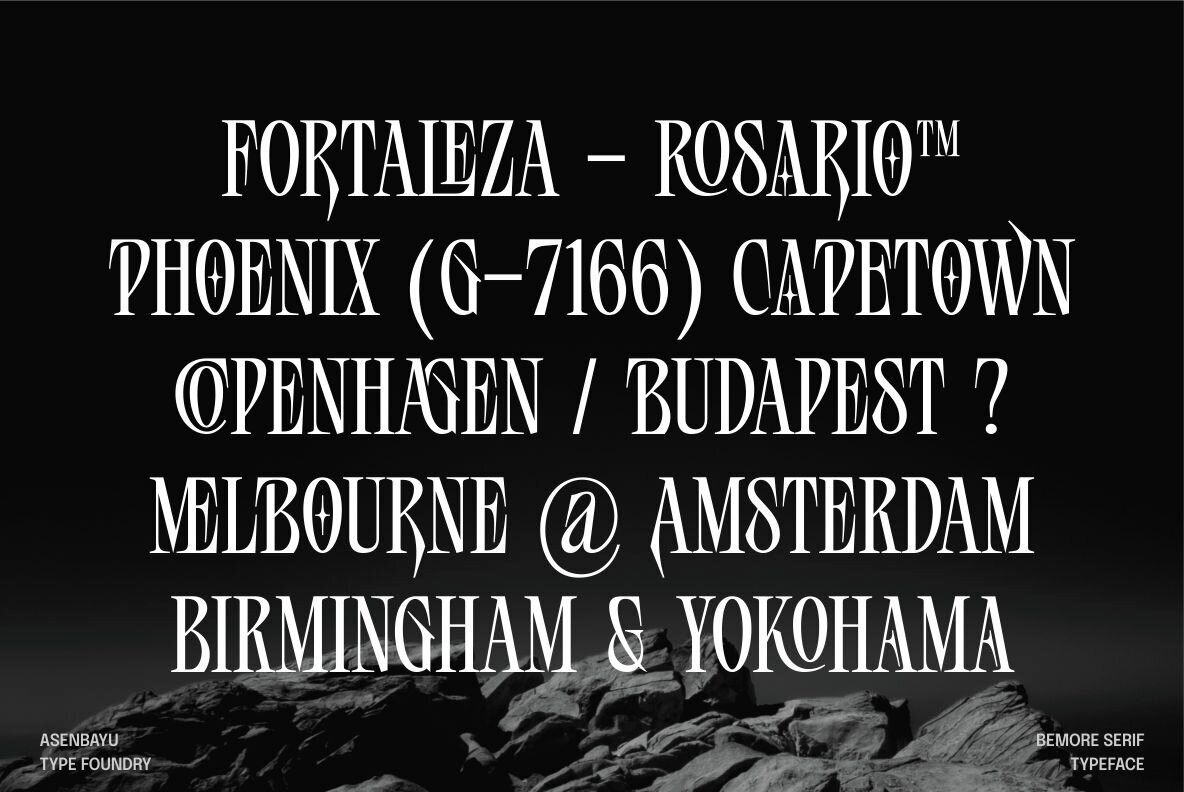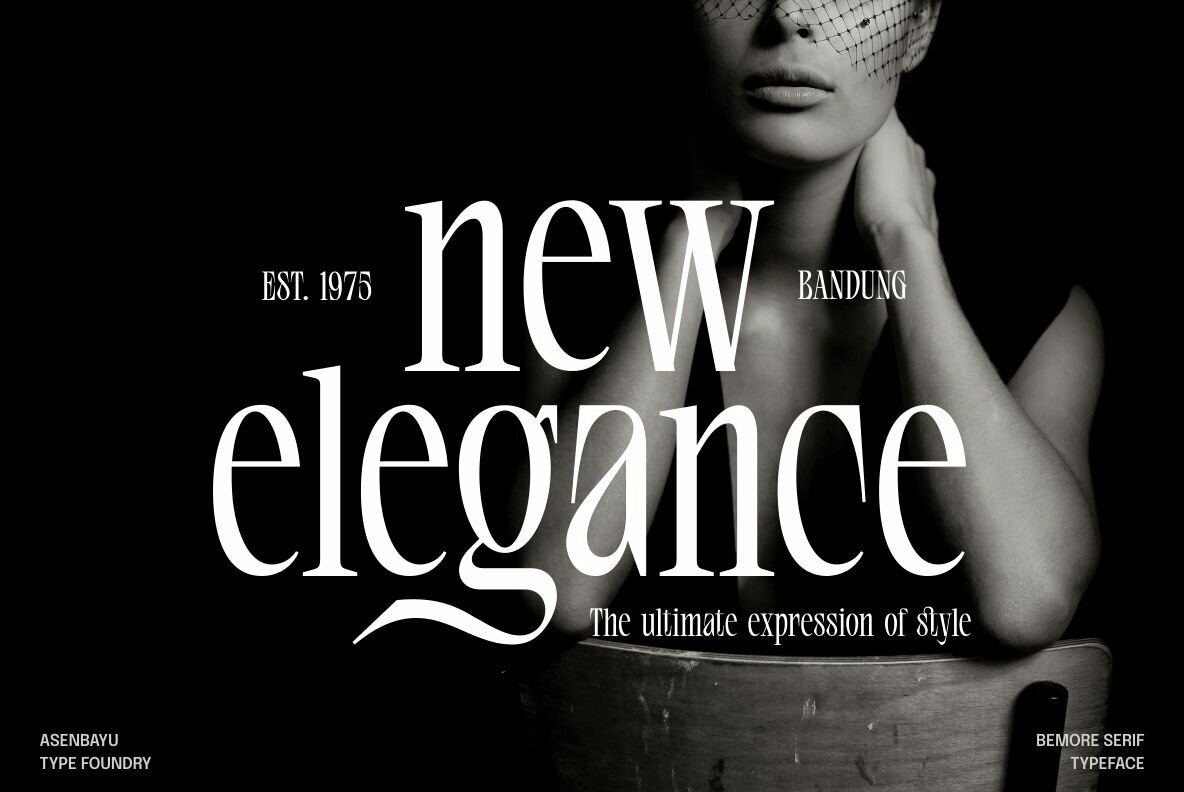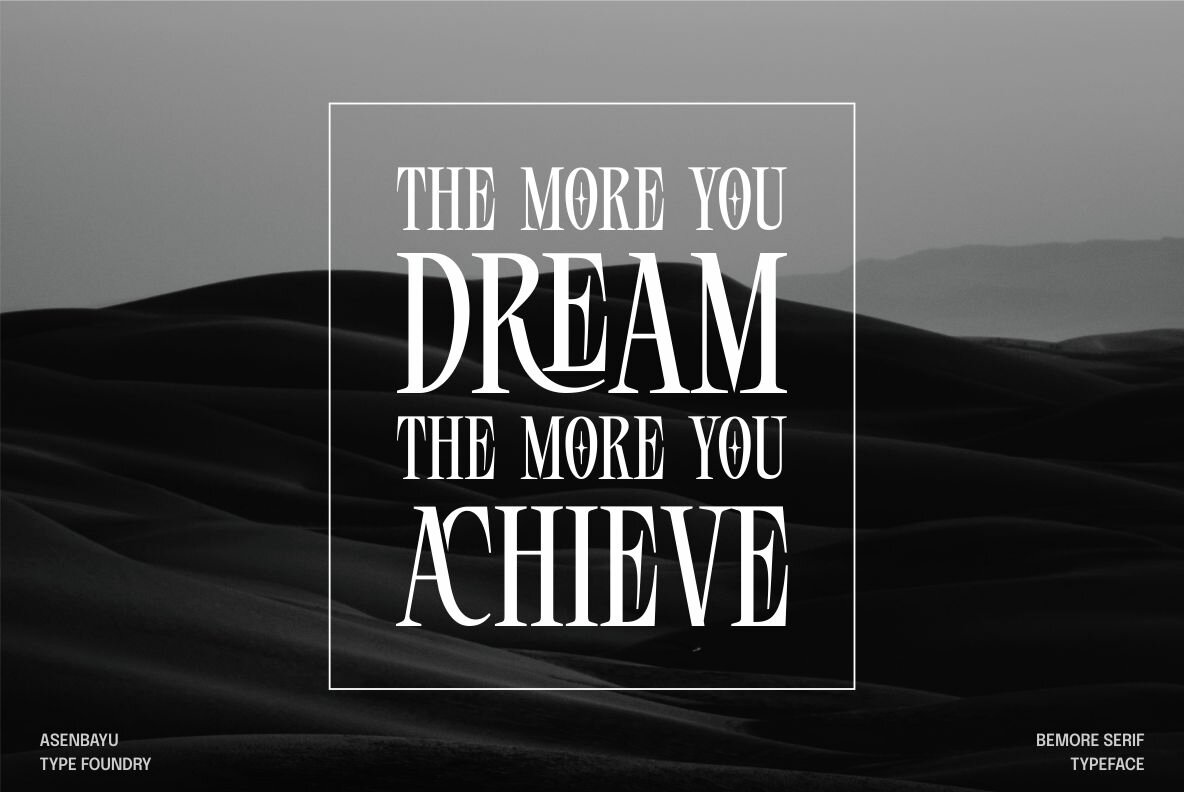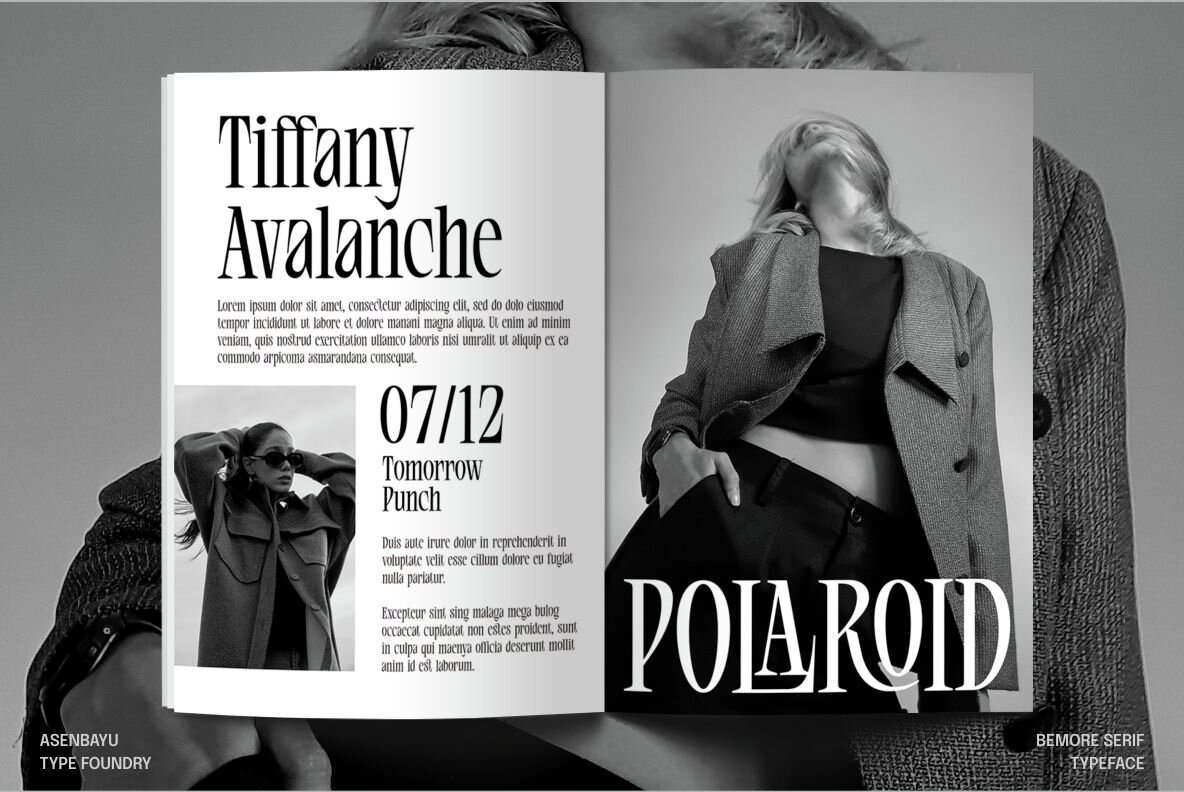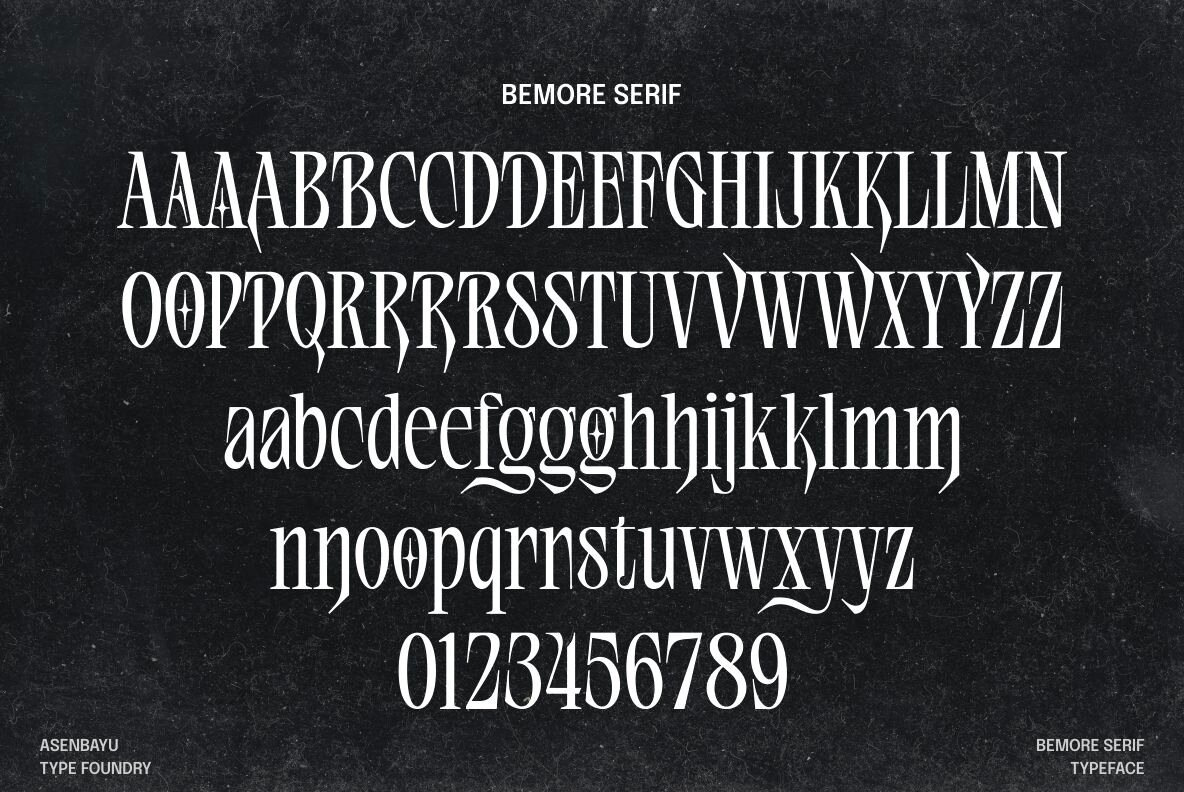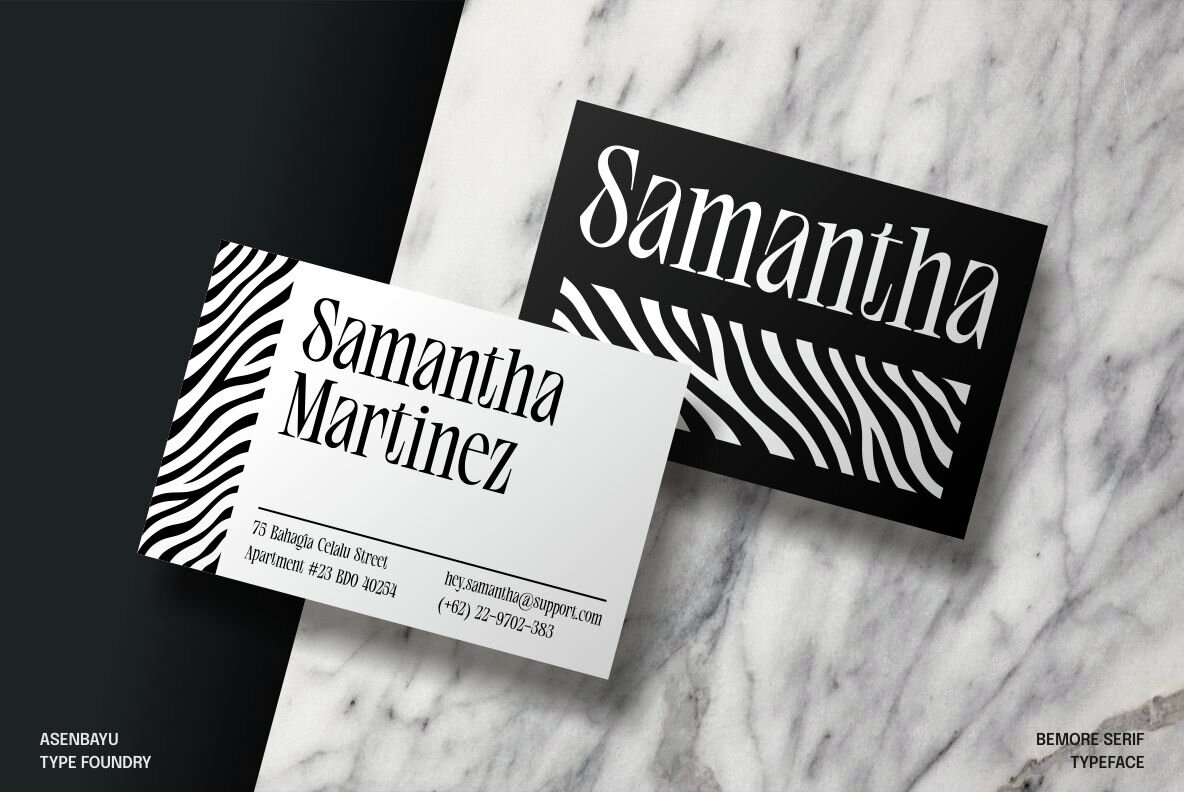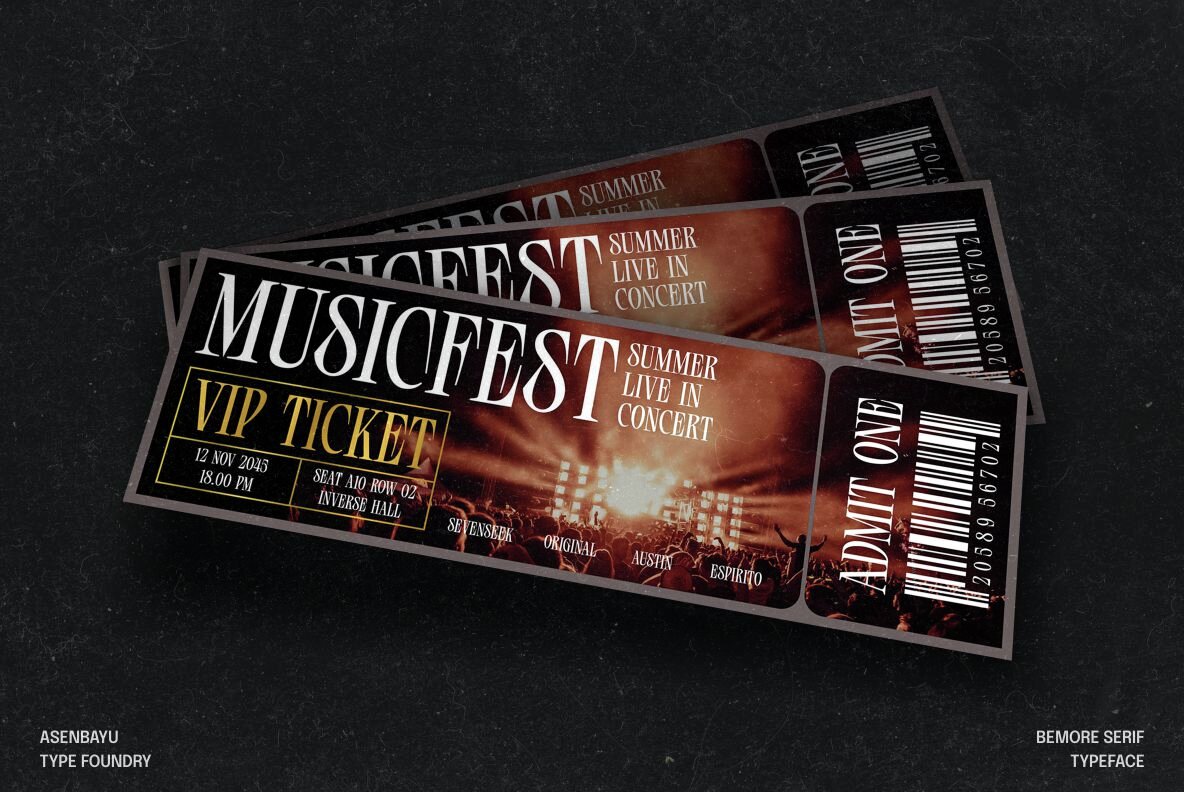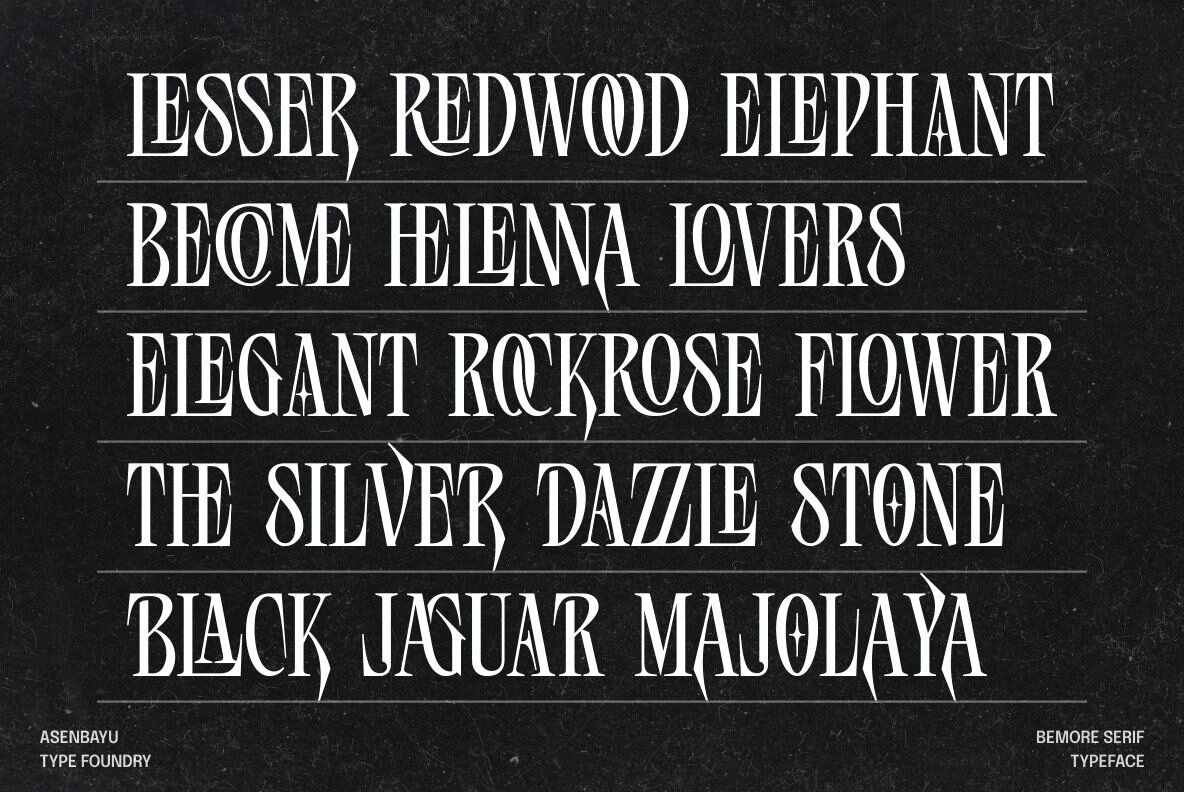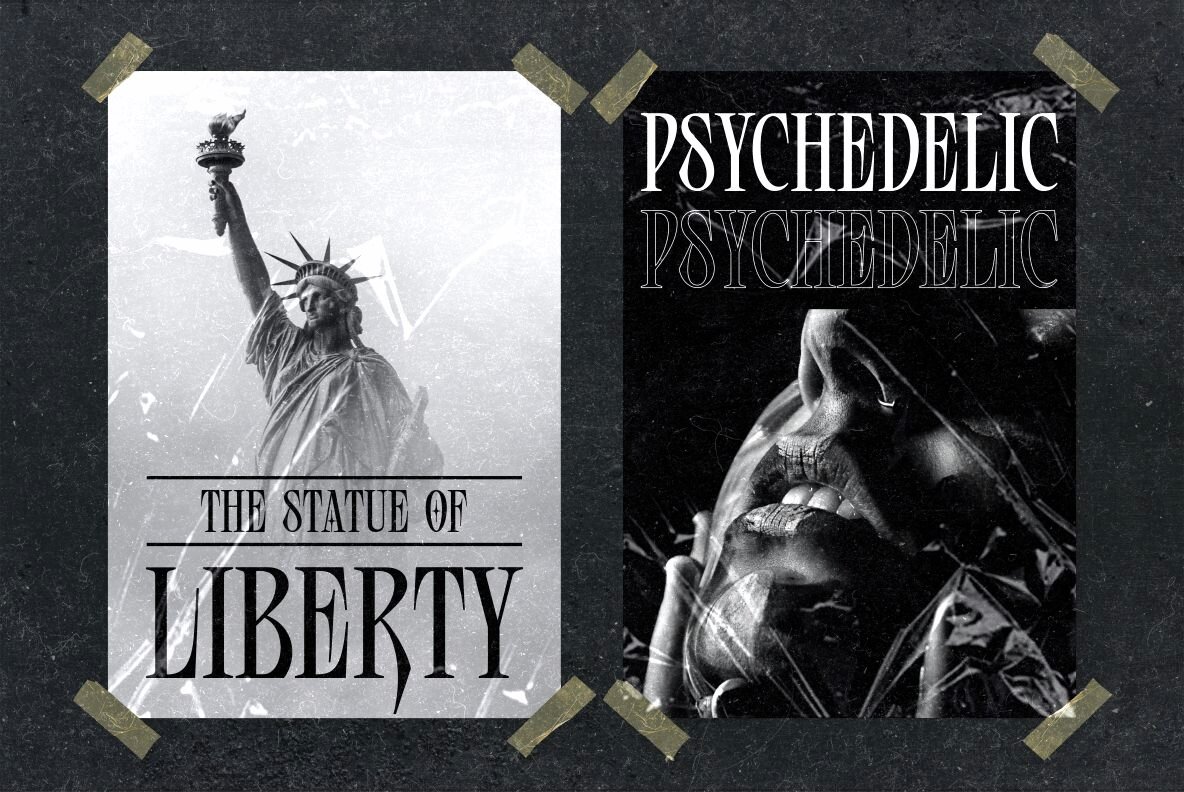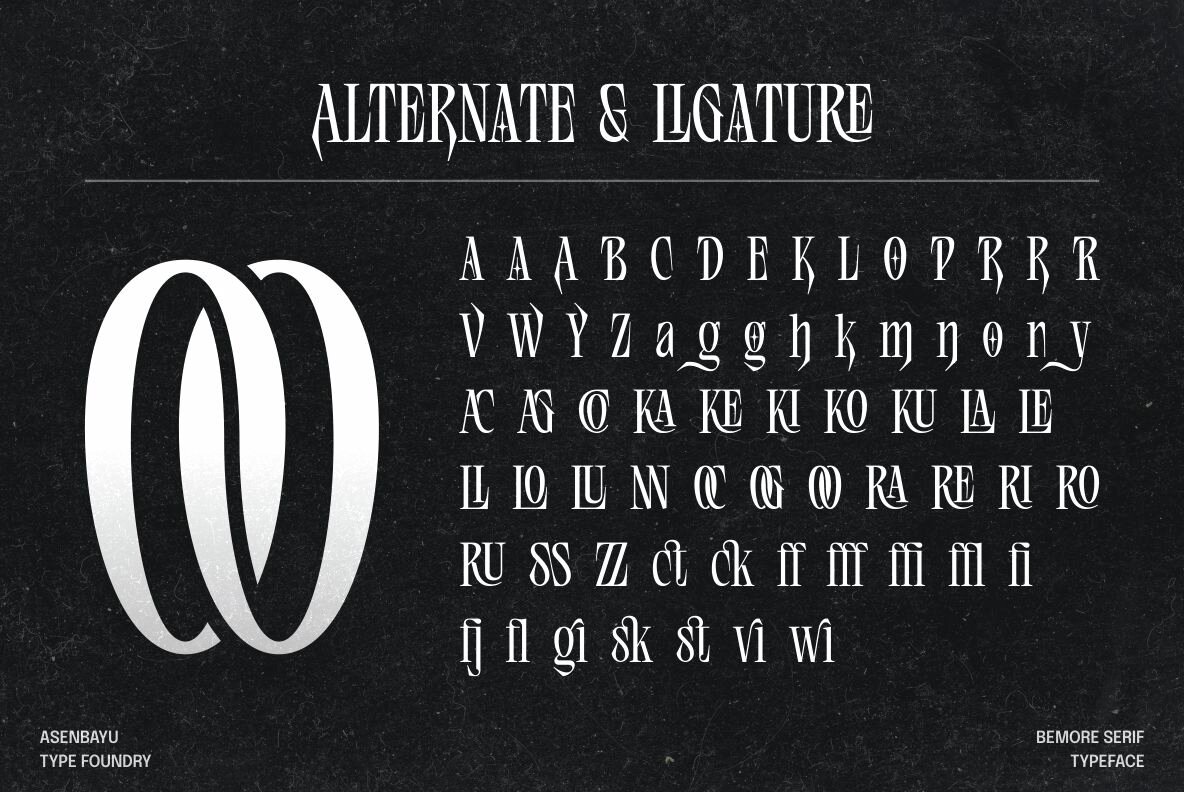
Bemore Serif
Bemore Serif is a decorative serif font that has a distinctive serif shape. This font has sleek and tall condensed letter proportions so it can give an attractive and elegant impression. You can use this font in both modern and vintage designs. This font is suitable for attractive packaging label designs, unique desired logos, trendy poster designs, fashion and many more.